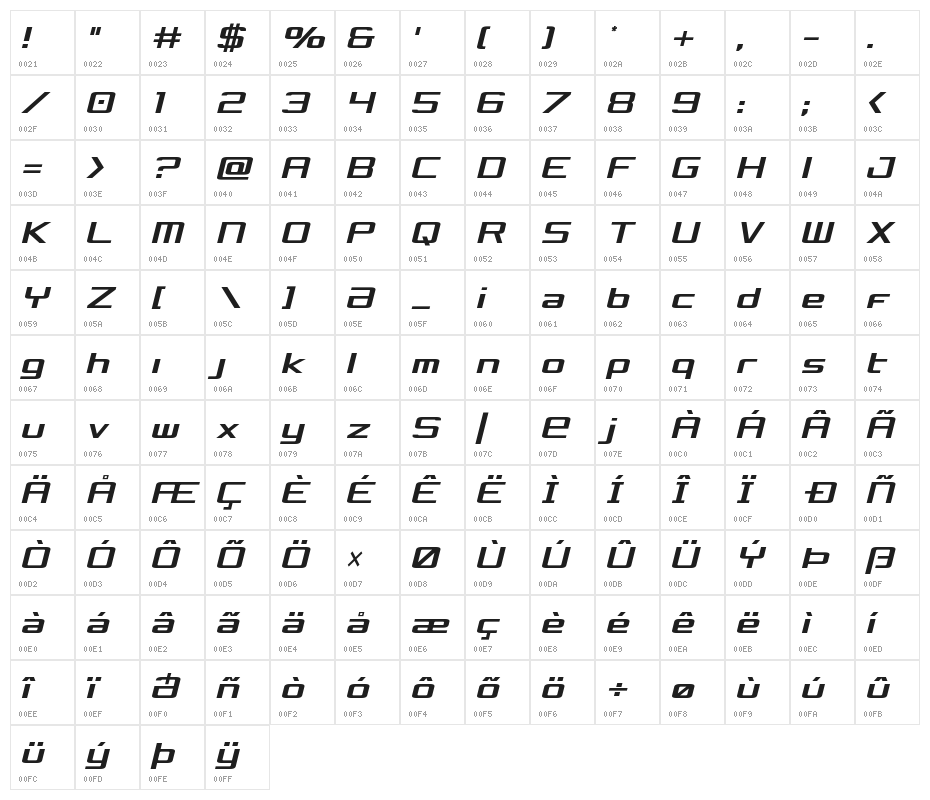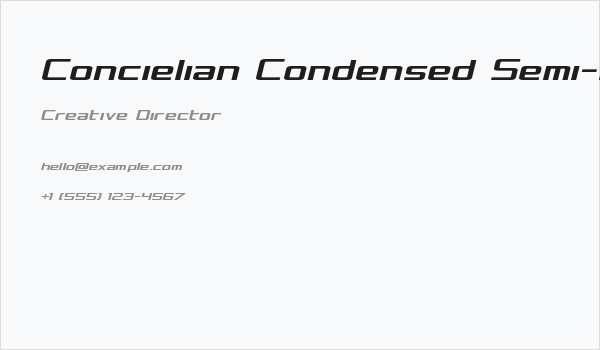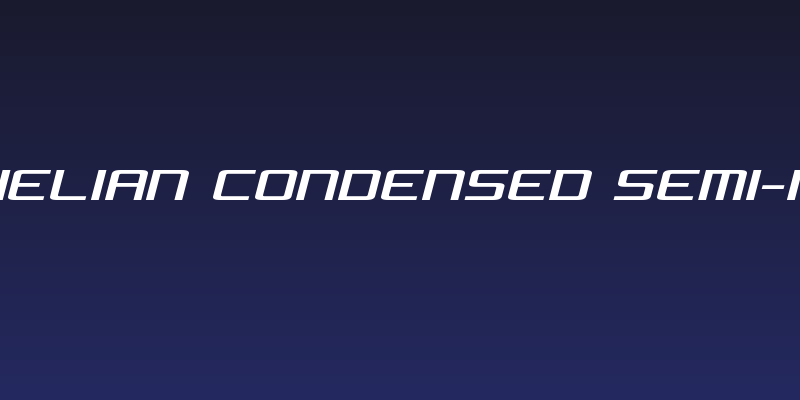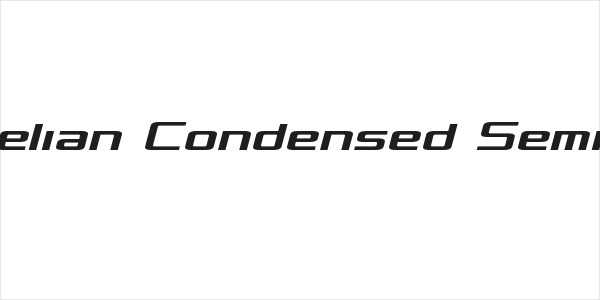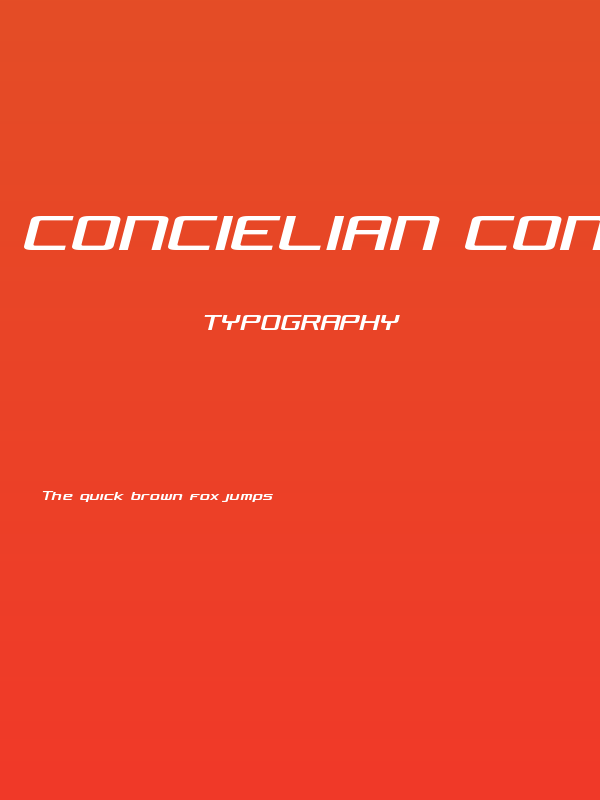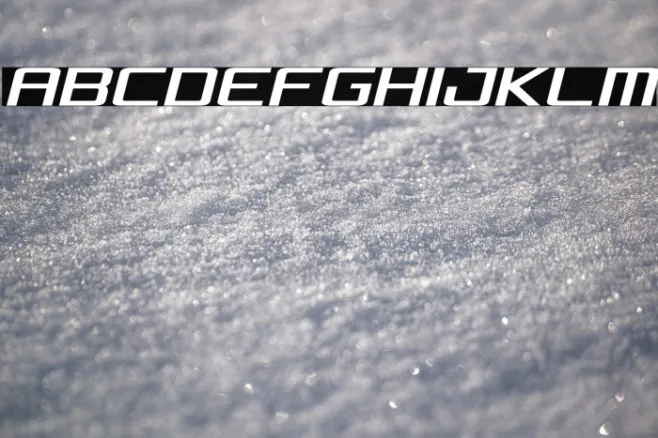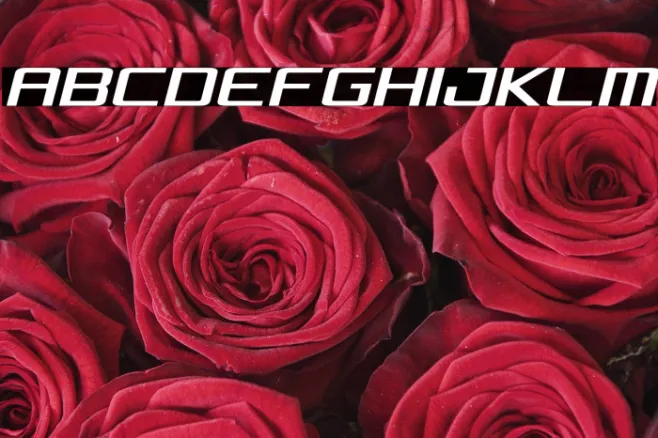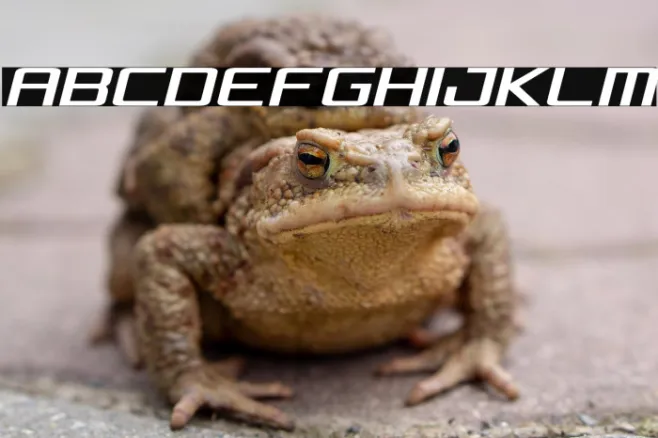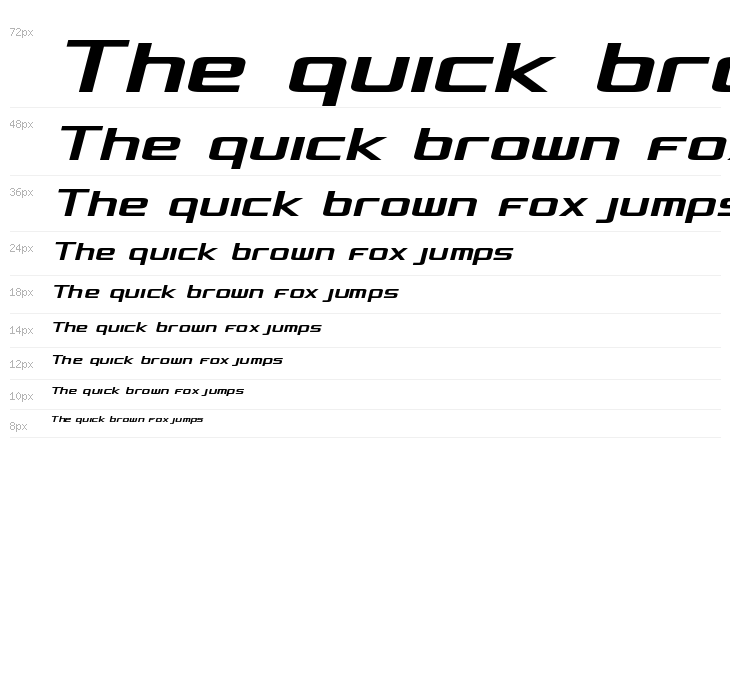
Concielian Condensed Semi-Italic Font
Concielian Condensed Semi-Italic Description
This font features a sleek and modern design with a condensed and semi-italic style. The characters are slightly slanted, giving a dynamic and forward-moving appearance. The uppercase and lowercase letters maintain a consistent height, contributing to a uniform look. The numbers are bold and clear, ensuring readability. Special characters are well-defined, adding versatility for various uses. The overall design is clean and minimalistic, making it suitable for contemporary projects.
| Use Case | Headlines, Logos, Digital Media |
| Proposed Projects | Ideal for branding, advertising, and digital media projects where a modern and dynamic look is desired. |